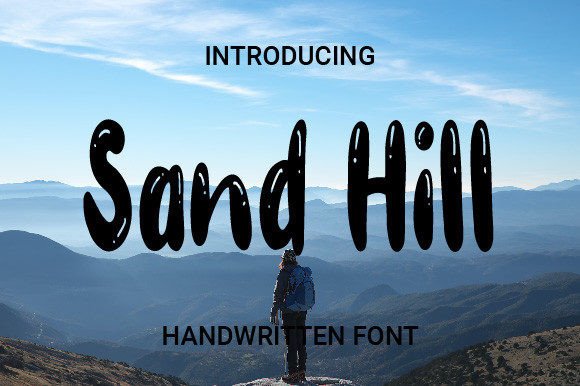
Unleash the Whimsy and Magic of Primary School with Sand Hill Font: A Symphony of Creativity for Young Minds!
In the realm of primary education, where learning blossoms and imaginations soar, there exists a font that captures the essence of childhood wonder and playful exploration: Sand Hill Font. This enchanting display font, meticulously crafted by the visionary designers at Wisnoetype Co., is a symphony of creativity that transforms words into captivating works of art.
Sand Hill Font is a delightful dance of thick, hand-drawn strokes, interwoven with delicate line patterns that add a touch of sophistication to its playful charm. Each letter is a unique masterpiece, imbued with personality and a sense of childlike innocence. With its playful curves and cheerful demeanor, Sand Hill Font breathes life into school projects, posters, and any creative endeavor that seeks to engage young minds.
Tailored specifically for the realm of primary education, Sand Hill Font effortlessly resonates with the vibrant energy of the classroom. Its sturdy structure and legible forms ensure effortless readability, while its whimsical design sparks imagination and encourages self-expression. Teachers and students alike will revel in the joy of using Sand Hill Font to create captivating presentations, vibrant worksheets, and eye-catching posters that transform learning into an unforgettable adventure.
Beyond the classroom, Sand Hill Font shines as a beacon of creativity in the world of design. Its versatility extends to a wide range of applications, from screen printing on clothing to designing captivating posters that capture the attention of young and old alike. With its playful spirit and endless possibilities, Sand Hill Font is the perfect choice for designers seeking to create enchanting designs that resonate with the hearts of children.
Immerse yourself in the world of Sand Hill Font and discover a treasure trove of creative possibilities. Let your imagination run wild as you weave tales of adventure, craft educational materials that ignite curiosity, and design products that bring a smile to the faces of children. Sand Hill Font is more than just a font; it's an invitation to embark on a journey of creativity and imagination.